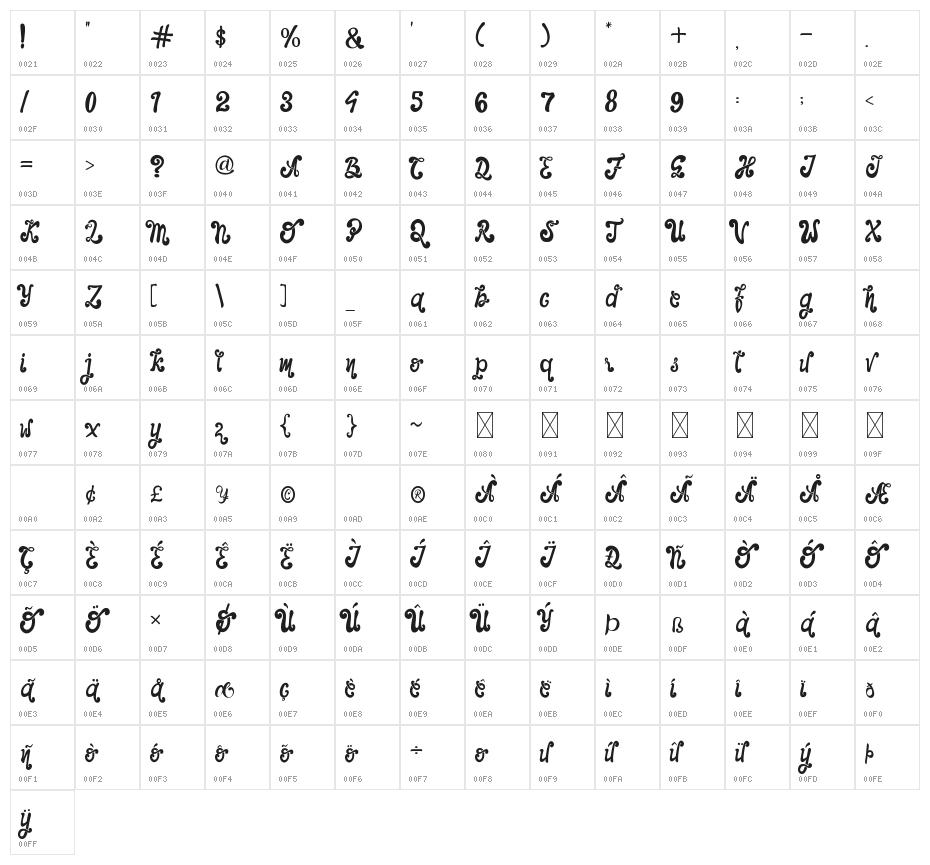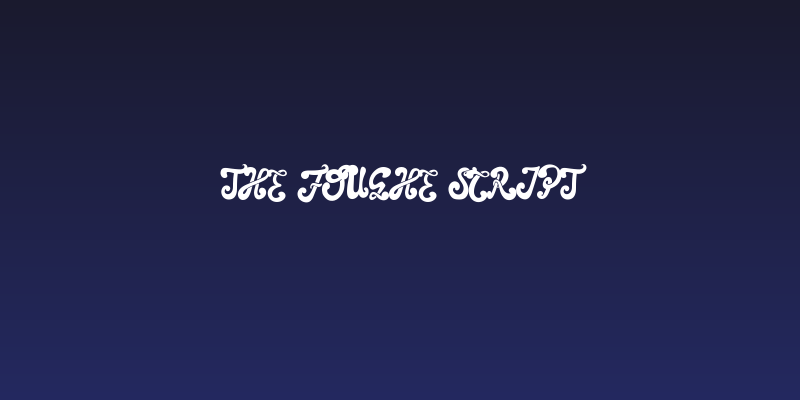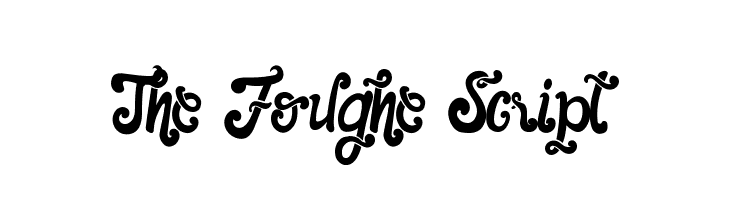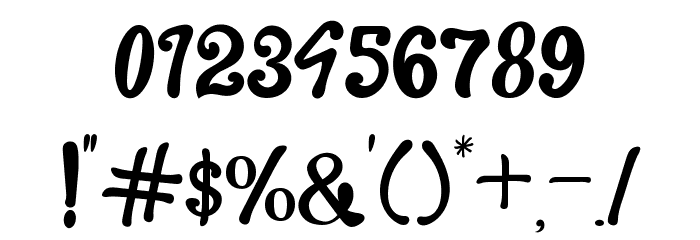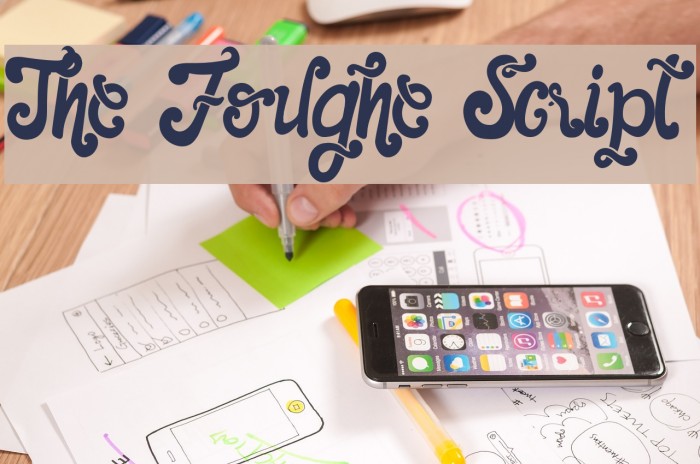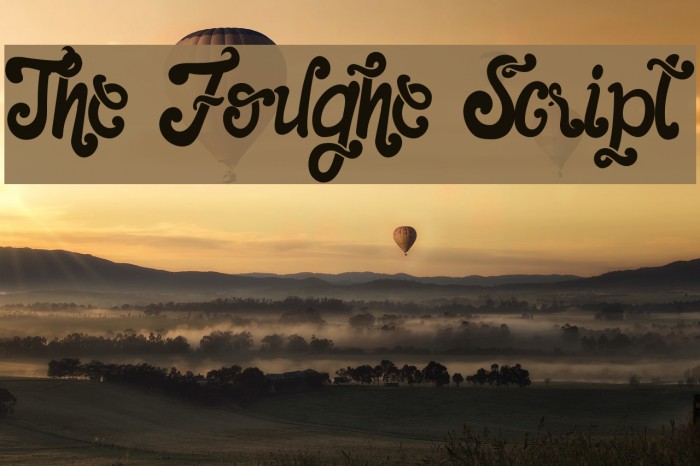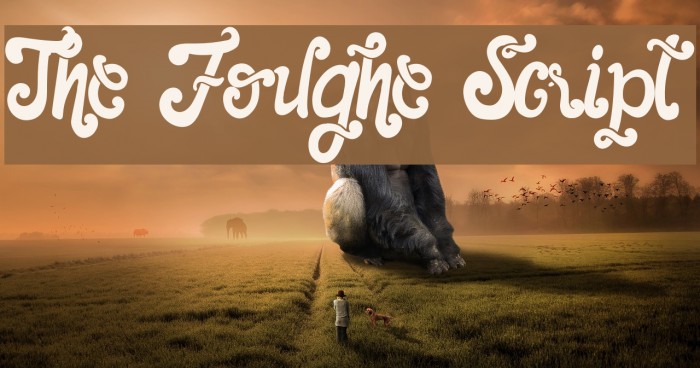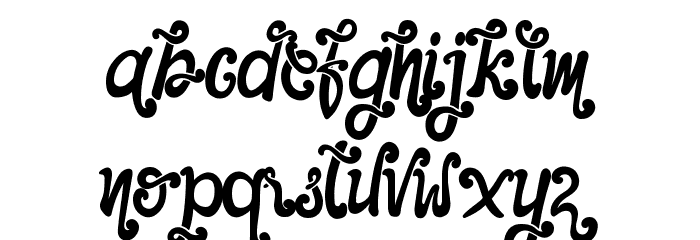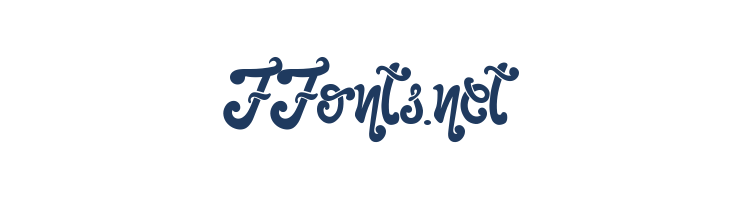
The Foughe Script Font
The Foughe Script Description
This font is a decorative script with a bold and elaborate design. Each character is adorned with intricate swirls and loops, giving it a whimsical and artistic appearance. The uppercase letters are particularly ornate, featuring exaggerated curves and flourishes that extend beyond the baseline and cap height. The lowercase letters maintain a consistent style, with unique embellishments that add to the font's playful nature. Numbers and special characters are equally stylized, ensuring a cohesive look across all glyphs. This font's distinctiveness makes it ideal for creative and expressive projects.
| Use Case | Logos, Headlines, Artistic projects |
| Proposed Projects | Ideal for invitations, greeting cards, branding, and artistic posters. |